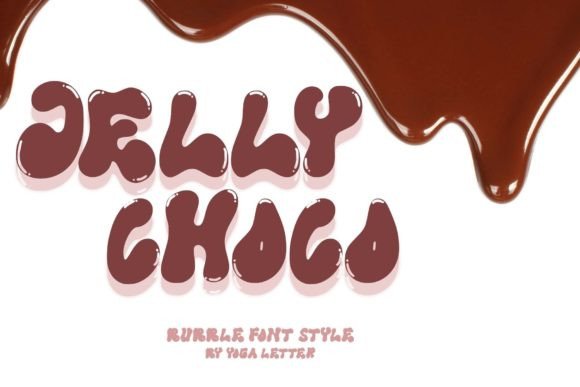
Are you captivated by retro charm and vintage allure? Journey back in time with Jelly Choco Font, a whimsical display font that adds an enchanting touch to your creations. Inspired by the era of nostalgia and timeless style, Jelly Choco transports you to a bygone era, bringing a touch of magic to your designs.
Born from the creative mind of yogaletter6, Jelly Choco is an extraordinary fusion of past and present. This delightful font combines charming curves with playful bubble-like edges, crafting a visual treat for the eyes. With its comprehensive character set featuring uppercase, lowercase, numerals, and punctuation, Jelly Choco is a versatile companion for all your creative endeavors.
Unleash your imagination and let Jelly Choco bring your words to life. Create captivating business branding that oozes personality and leaves a lasting impression, leaving your audience spellbound. Let your banners, posters, and stickers speak volumes with a font that radiates playfulness and vintage charm. Make your product promotions and advertisements shine with a unique flair that captures attention and sparks curiosity.
Whether designing for personal projects or commercial masterpieces, Jelly Choco is the font of choice for those seeking a nostalgic touch. Its versatility extends beyond the digital realm, inviting you to explore the world of physical creation. Embellish your crafts, personalize your home décor, or create unique gifts that exude a sense of nostalgia and joy.
Immerse yourself in the enchanting world of Jelly Choco Font, where creativity meets vintage elegance. Revive the magic of the past and infuse your designs with a timeless appeal, leaving a trail of awe-inspiring impressions wherever you go. Embrace the charm of Jelly Choco today and embark on an artistic adventure that celebrates the beauty of yesteryears.